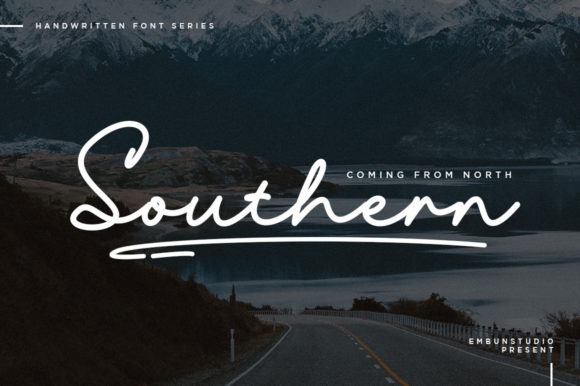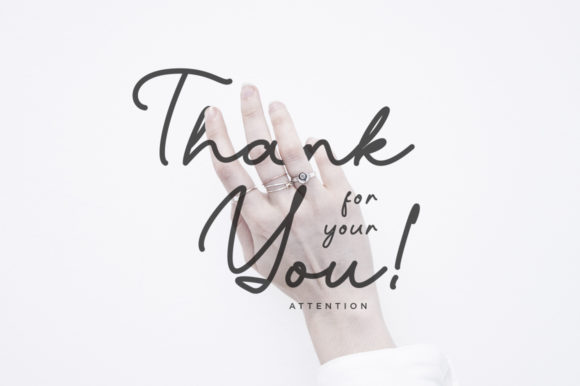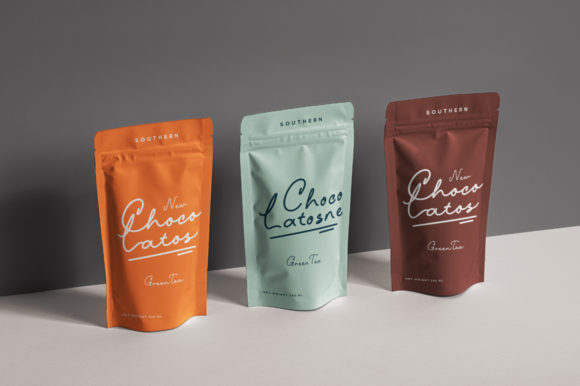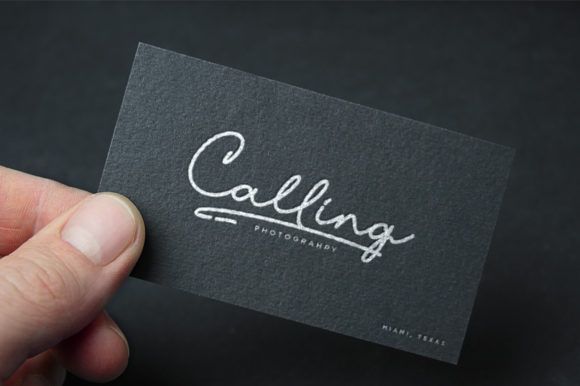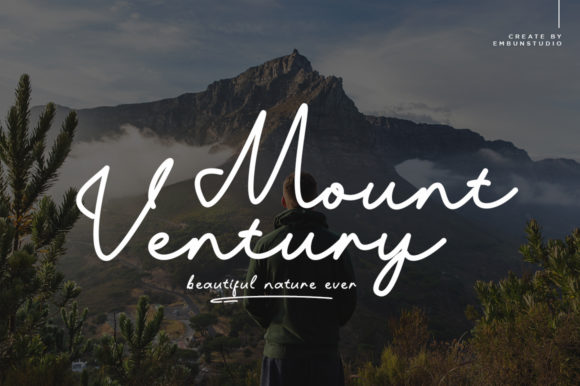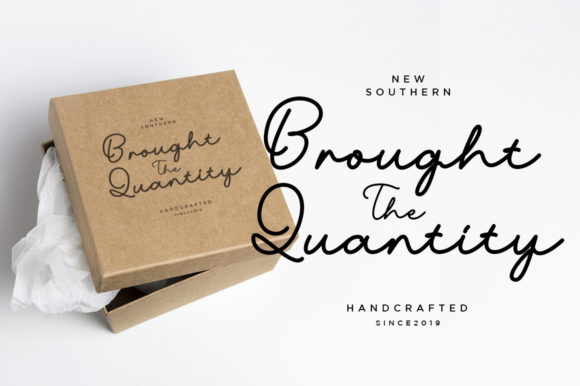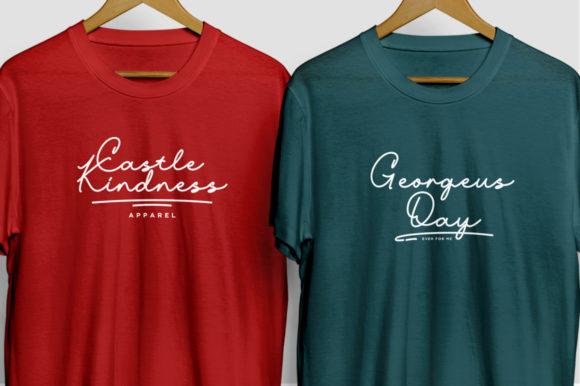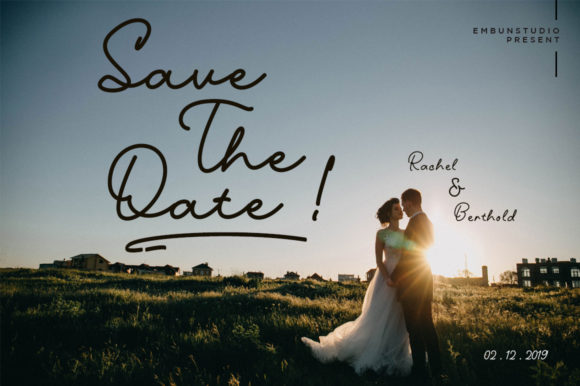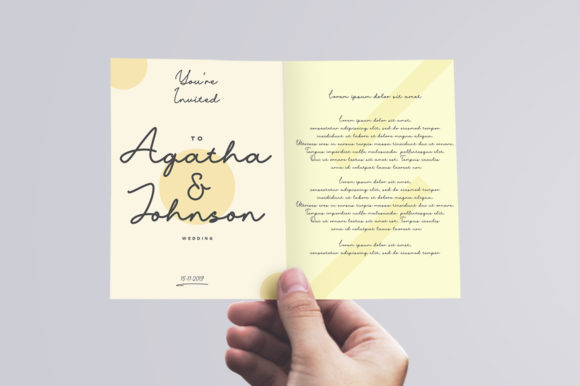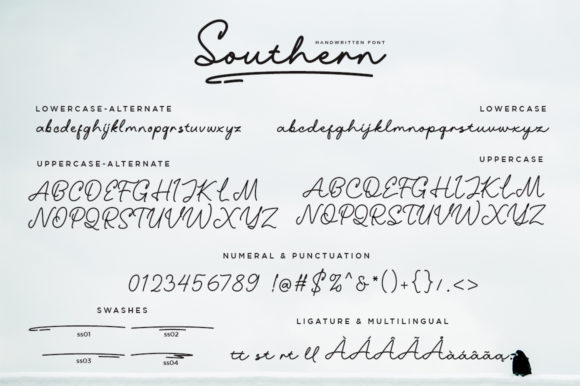
HomeScript FontsSouthern Font Script Fonts Southern Font FacebookXPinterestWhatsApp Southern Font Poster 2 Southern Font Poster 3 Southern Font Poster 4 Southern Font Poster 5 Southern Font Poster 6 Southern Font Poster 7 Southern Font Poster 8 Southern Font Poster 9 Southern Font Poster 10 About Southern Font Southern is a lovely handwritten font. It has an elegant feel that will give a unique touch to your projects. DOWNLOAD ON CREATIVE FABRICAThis font is sold and delivered by Creative Fabrica. Font Canyon may earn a commission if you buy through this link. People also explored Hospital Font Famous Font Erkn Font Smooth Font Schmitt Font Baslien Font Oak Ridge JNL Font Then Font Take The Money 345 0 TagsSouthern Font Previous articleAlleha FontNext articleSyakia Font LEAVE A REPLY Cancel reply Comment: Please enter your comment! Name:* Please enter your name here Email:* You have entered an incorrect email address! Please enter your email address here Website: Save my name, email, and website in this browser for the next time I comment. Personal Use Free Omellia Personal Use Free Read more about this font Omira Personal Use Free Read more about this font Ciggs Personal Use Free Read more about this font Qiwqiw Personal Use Free Read more about this font BLOG Modern Sans-Serif Fonts That Brands Love in 2025 In 2025, modern sans-serif fonts remain a top choice for brands looking to project clarity, professionalism, and... Where to Buy American Fonts Online in 2024 Using Fonts in Digital Marketing: Tips to Strengthen Your Brand Identity Elegant Wedding Invitation Fonts – Handwritten & Script Fonts